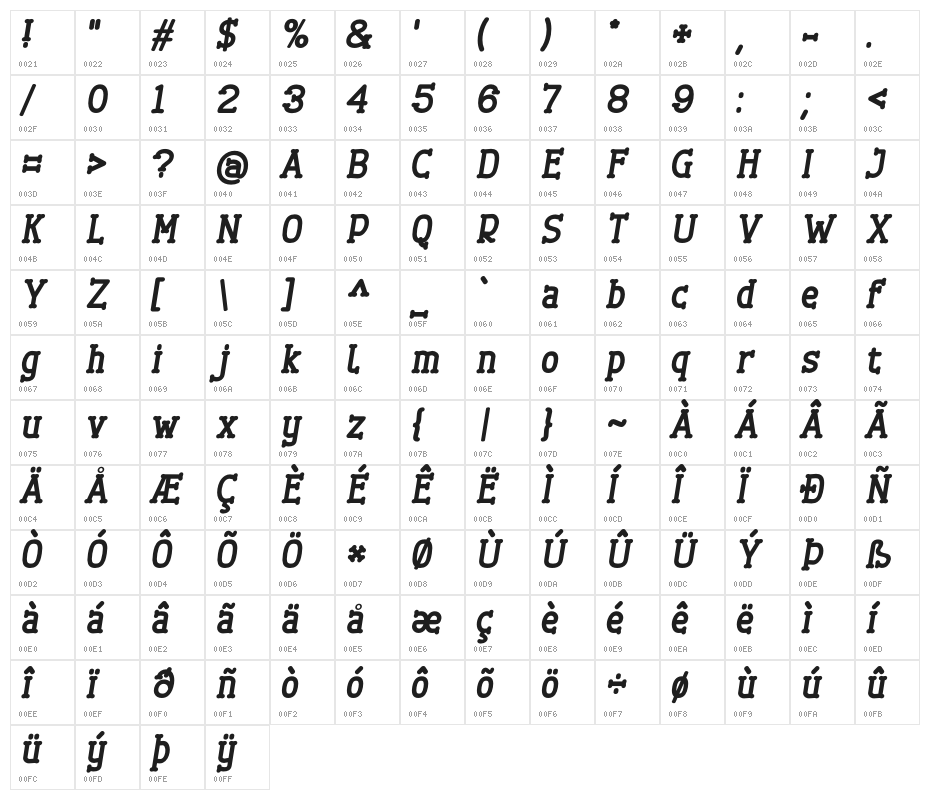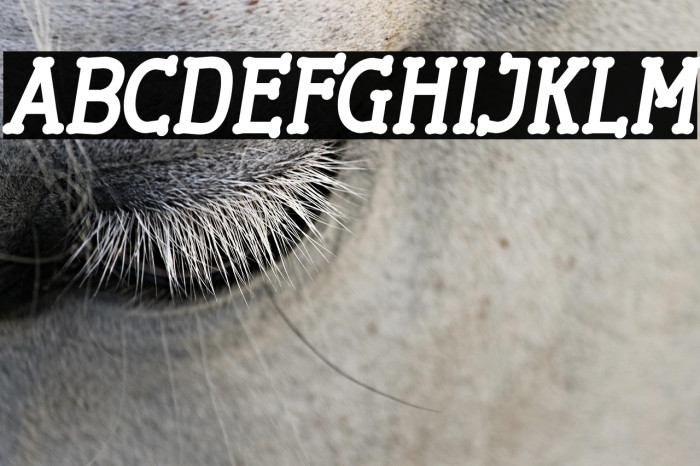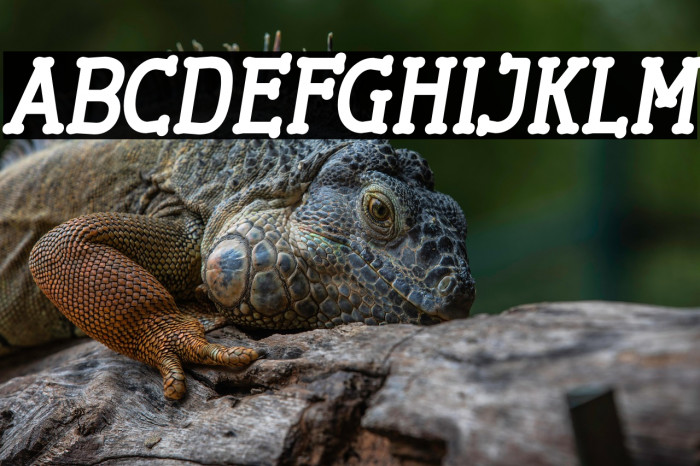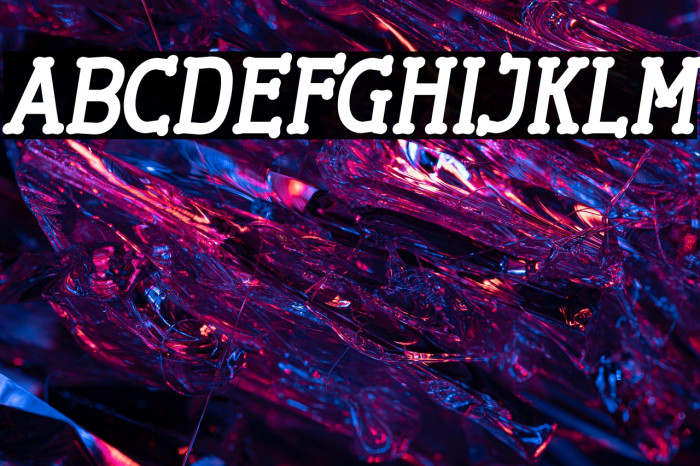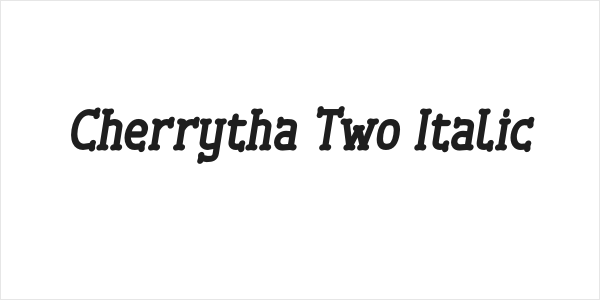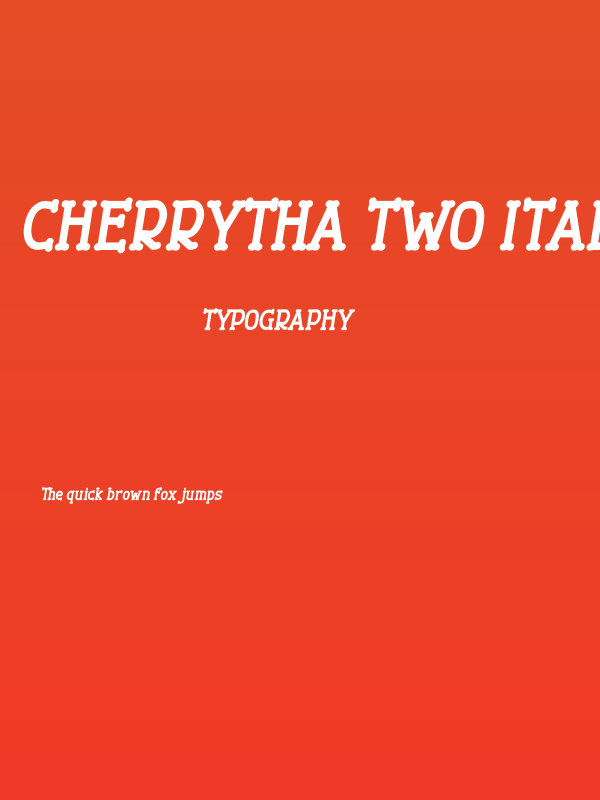
Cherrytha Two Italic Font
Cherrytha Two Italic Description
This font features a playful and bold design with a distinct italic slant, giving it a dynamic and energetic appearance. The characters are rounded with thick strokes, creating a sense of friendliness and approachability. The uppercase and lowercase letters are consistent in style, maintaining a cohesive look throughout. The numbers and special characters follow the same design principles, ensuring uniformity. This font's unique style makes it stand out, suitable for projects that require a touch of whimsy and creativity.
| Proposed Projects | Ideal for children's books, playful branding, posters, and creative advertising. |